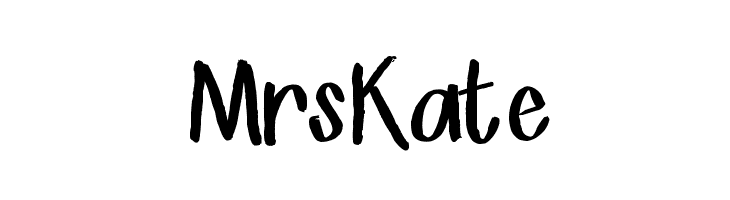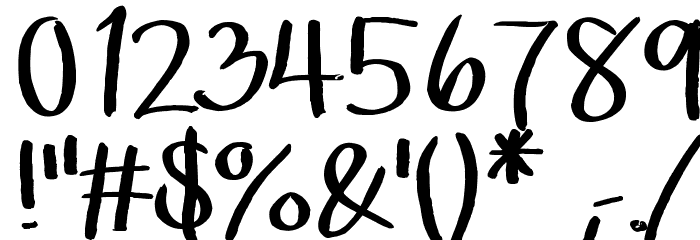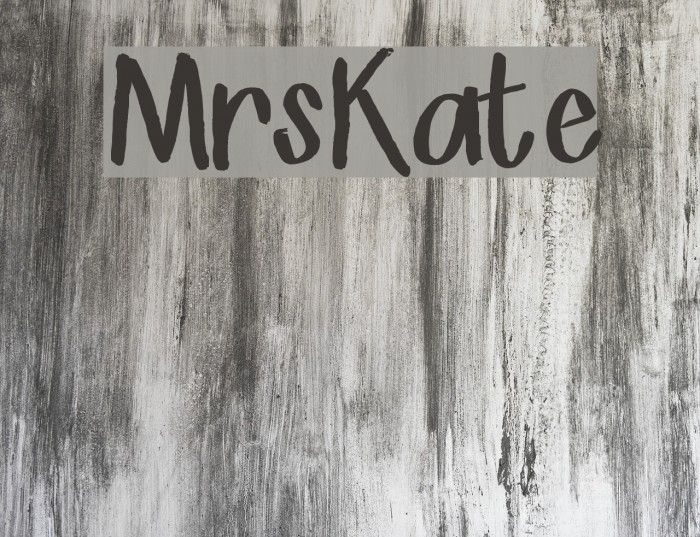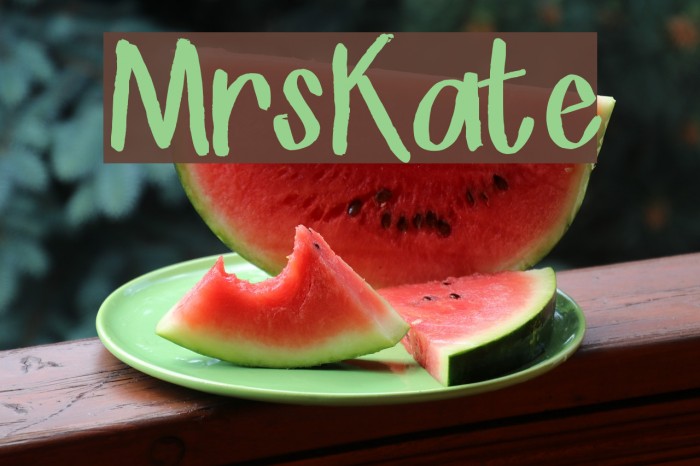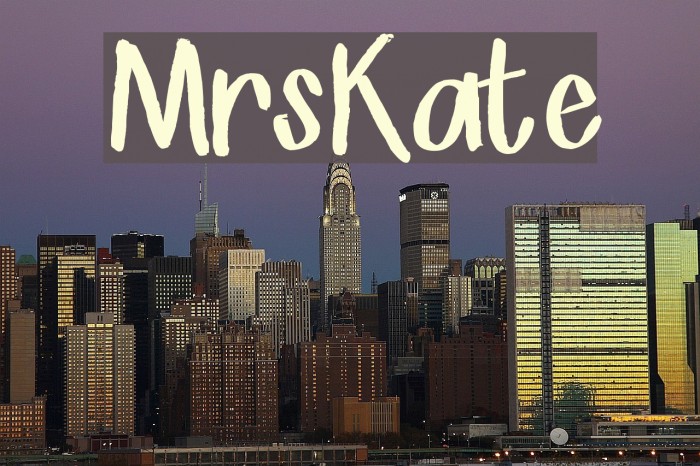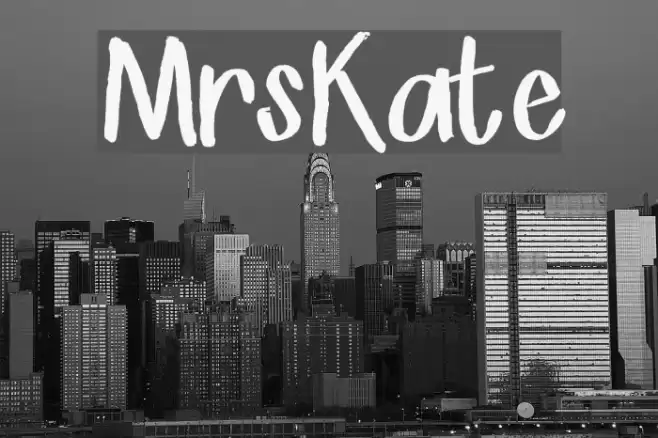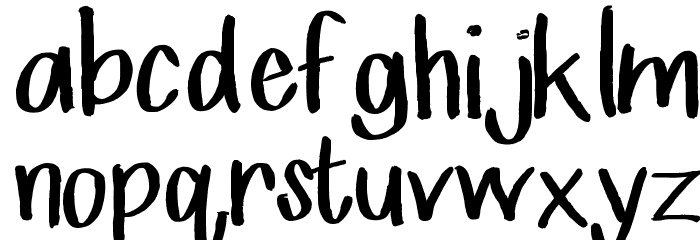
MrsKate Font
MrsKate Description
This font features a bold and expressive handwritten style, characterized by its dynamic and slightly irregular strokes. The letters have a casual and friendly appearance, with a playful yet legible form. The uppercase and lowercase letters maintain a consistent style, with rounded edges and a slightly slanted orientation, giving it an informal and approachable feel. The numbers and special characters follow the same design principles, ensuring a cohesive look across all elements. This font's energetic and lively nature makes it suitable for projects that require a personal touch or a creative flair.
| Overall Style | Casual, Playful |
| Use Case | Headlines, Logos, Creative projects |
| Proposed Projects | Ideal for greeting cards, invitations, personal branding, social media graphics, and creative projects that require a personal touch. |